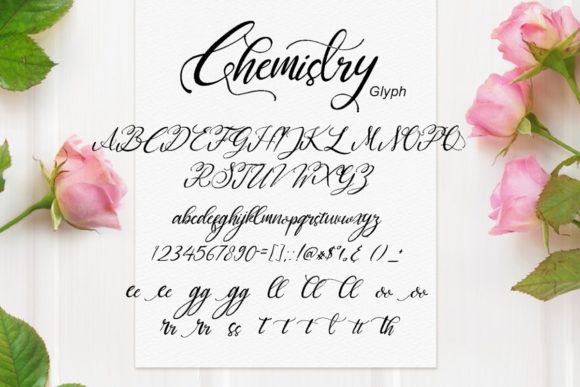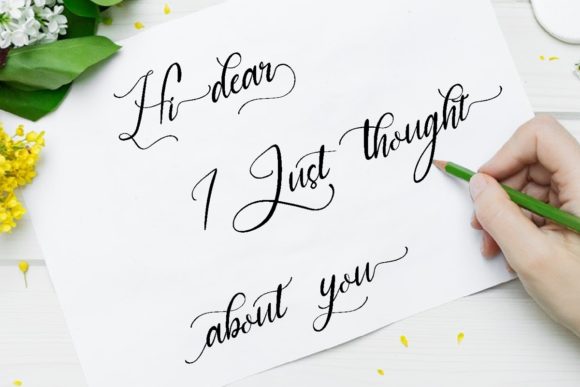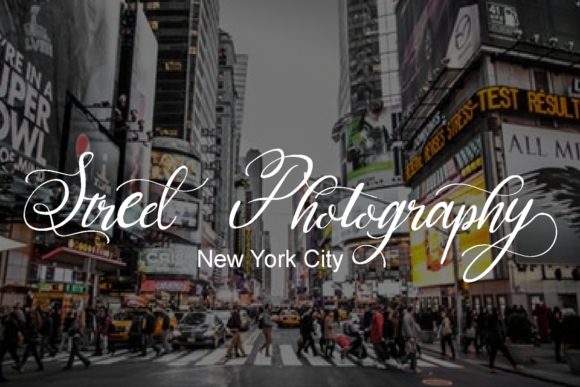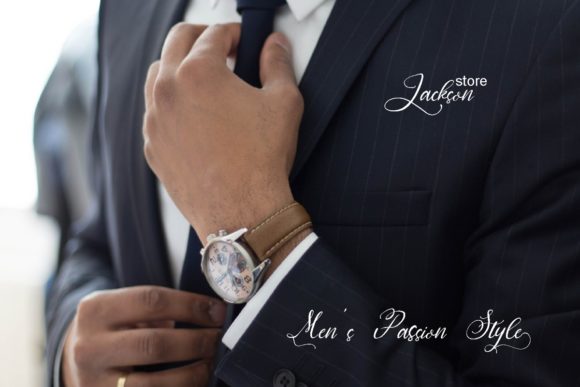
Chemistry Font: Elevate Your Designs with Elegance and Creativity
Are you a designer, crafter, or DIY enthusiast looking for a font that can add a touch of elegance and sophistication to your projects? Look no further than Chemistry Font, a simple yet stunning script font that can transform any creative idea into a true masterpiece. In this article, we’ll explore the features and benefits of Chemistry Font, and how it can become your go-to choice for a wide range of design projects.
What is Chemistry Font?
Chemistry Font is a beautifully crafted script font that exudes elegance and refinement. Its smooth, flowing lines and delicate curves make it perfect for a variety of design applications, from Instagram posts and social media graphics to calligraphy scripts and DIY projects. Whether you’re looking to add a personal touch to your designs or create stunning visual content, Chemistry Font is the perfect choice.
Key Features of Chemistry Font
- PUA Encoding: Chemistry Font is PUA (Private Use Area) encoded, which means that you can access all of the glyphs and swashes with ease. This feature allows you to unlock the full creative potential of the font and experiment with different combinations of letters and symbols.
- Elegant and Simple Design: The font features a simple yet elegant design that is perfect for a wide range of design projects. Its classic look and feel make it suitable for both modern and traditional designs.
- Versatile and Flexible: Chemistry Font is highly versatile and can be used for a variety of design applications, from social media graphics and Instagram posts to calligraphy scripts and DIY projects.
Benefits of Using Chemistry Font
So, why choose Chemistry Font for your design projects? Here are just a few benefits of using this amazing font:
- Elevate Your Designs: Chemistry Font can instantly elevate your designs and add a touch of elegance and sophistication. Its smooth, flowing lines and delicate curves make it perfect for creating stunning visual content.
- Easy to Use: The font is PUA encoded, which makes it easy to access all of the glyphs and swashes. This feature allows you to experiment with different combinations of letters and symbols and unlock the full creative potential of the font.
- Perfect for DIY Projects: Chemistry Font is perfect for DIY enthusiasts and crafters who want to add a personal touch to their projects. Whether you’re creating handmade cards, gift tags, or other crafts, this font is sure to impress.
Using Chemistry Font is easy and straightforward. Here are a few tips to get you started:
- Experiment with Glyphs and Swashes: Use the PUA encoding feature to access all of the glyphs and swashes and experiment with different combinations of letters and symbols.
- Pair with Other Fonts: Chemistry Font can be paired with other fonts to create stunning visual content. Experiment with different font combinations to find the perfect look for your design.
Chemistry Font is a simple yet stunning script font that can elevate any design project. Its elegant and refined design, PUA encoding feature, and versatility make it perfect for a wide range of design applications. Whether you’re a designer, crafter, or DIY enthusiast, Chemistry Font is sure to become your go-to choice for creating stunning visual content. So why wait? Download Chemistry Font today and unlock your creative potential!